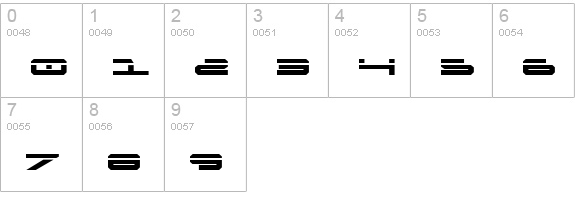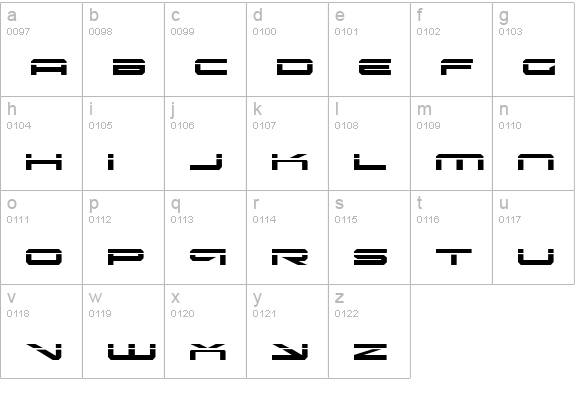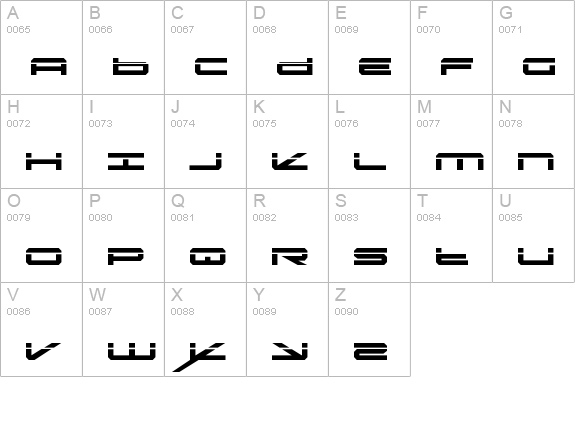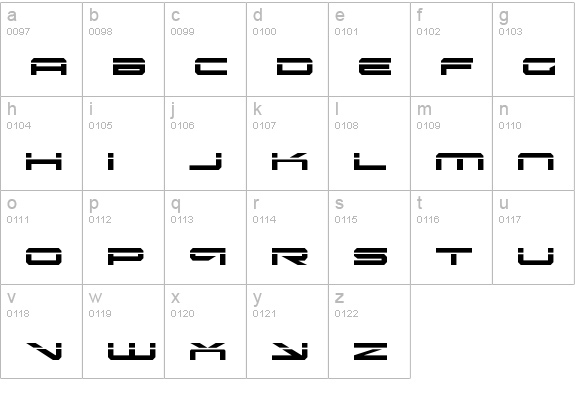
Oramac Laser font is a sleek and modern typeface that exudes a sense of precision and sophistication. With its clean lines and sharp angles, this font is perfect for projects that require a high-tech or futuristic aesthetic. The Oramac Laser font features a unique laser-cut appearance that sets it apart from traditional fonts, making it ideal for use in branding, signage, and digital designs. Best of all, Oramac Laser font is available for free download at FontsMarket.com. Whether you're a designer, marketer, or hobbyist, this font is a valuable addition to your collection of typographic resources. With Oramac Laser font, you can elevate your projects with a touch of contemporary style and professionalism. Download it today and see the difference it can make in your creative endeavors.